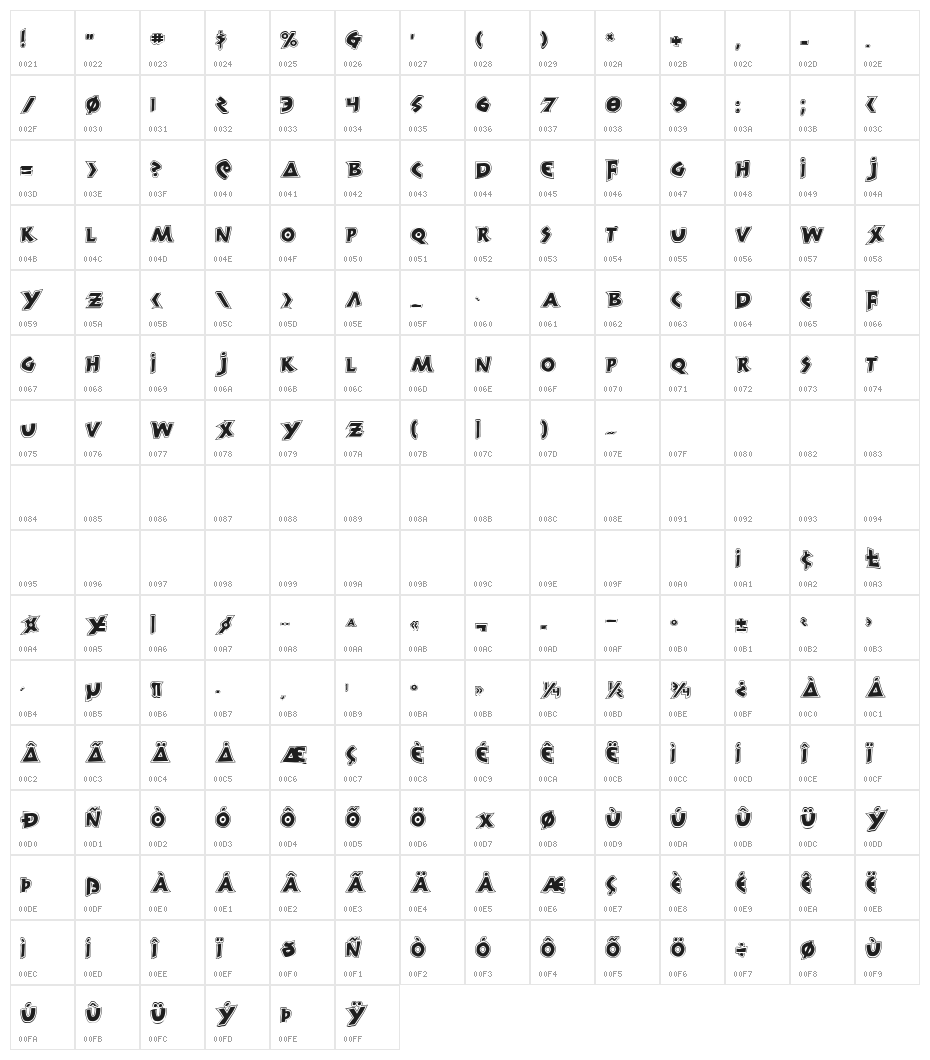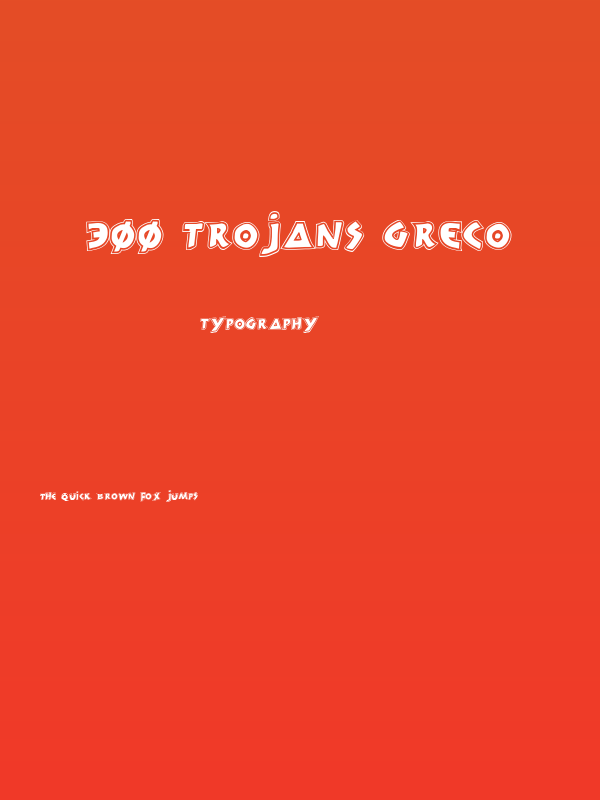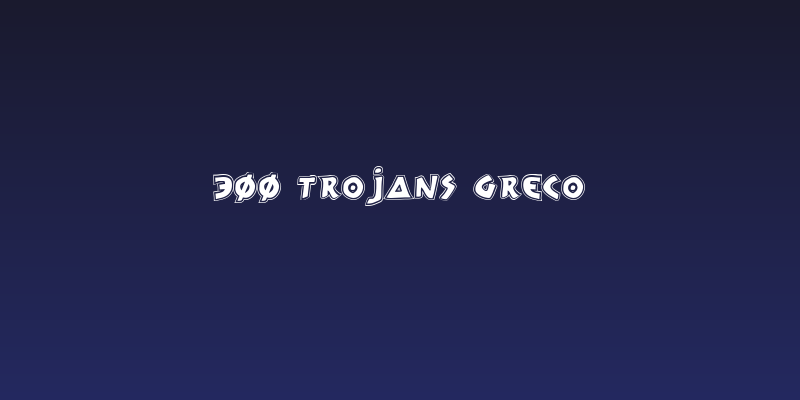
300 Trojans Greco Font
300 Trojans Greco Description
This font features a bold and dynamic style with a strong presence. The characters are designed with a thick outline that gives them a three-dimensional effect, reminiscent of ancient Greek or Roman inscriptions. The uppercase letters are particularly striking, with sharp angles and a sense of movement. The lowercase letters maintain the same boldness, ensuring consistency across the typeface. Numbers and special characters are equally bold, making them stand out. This font is perfect for projects that require a dramatic and impactful look.
| Proposed Projects | Ideal for movie posters, video game titles, historical documentaries, or any project needing a dramatic flair. |